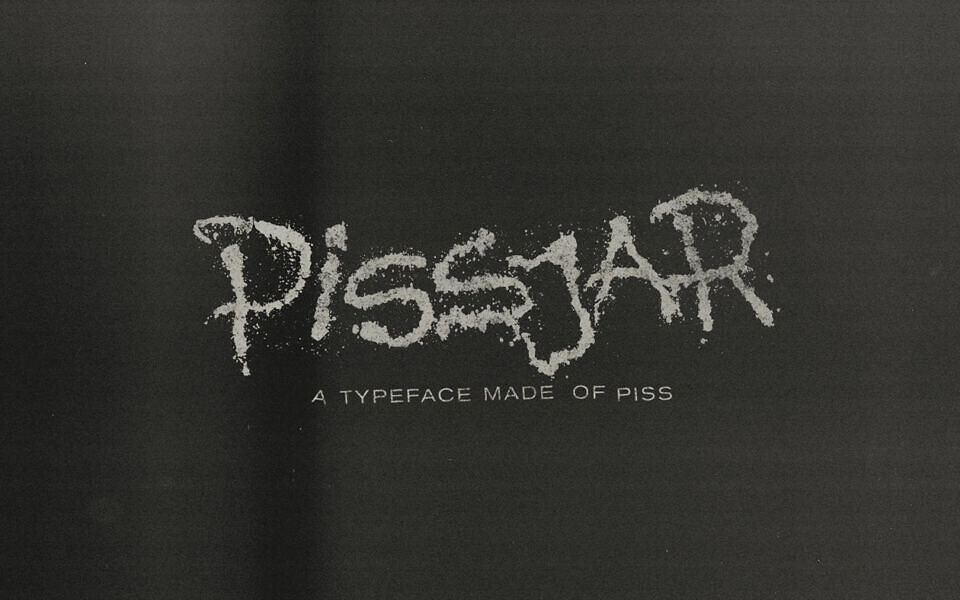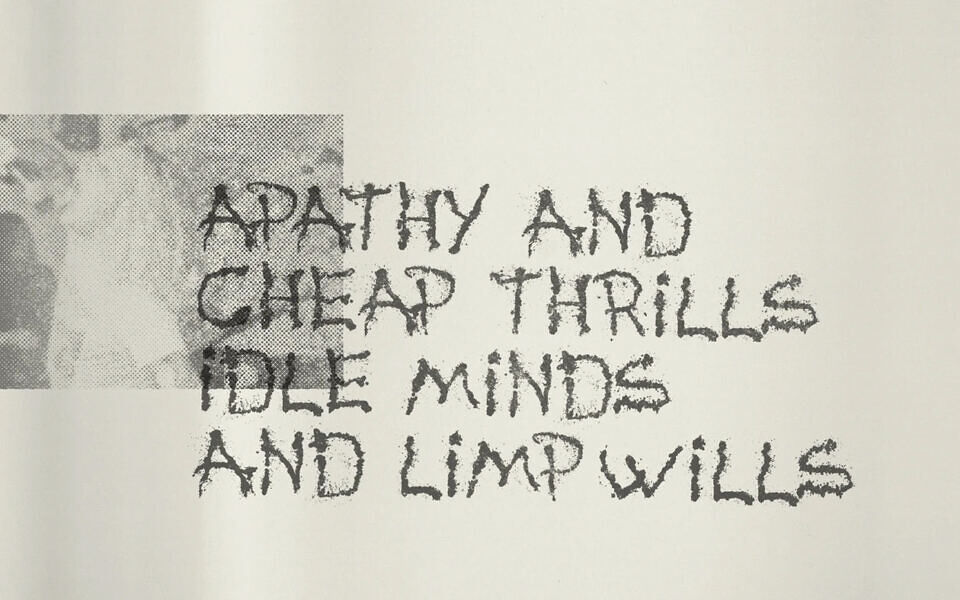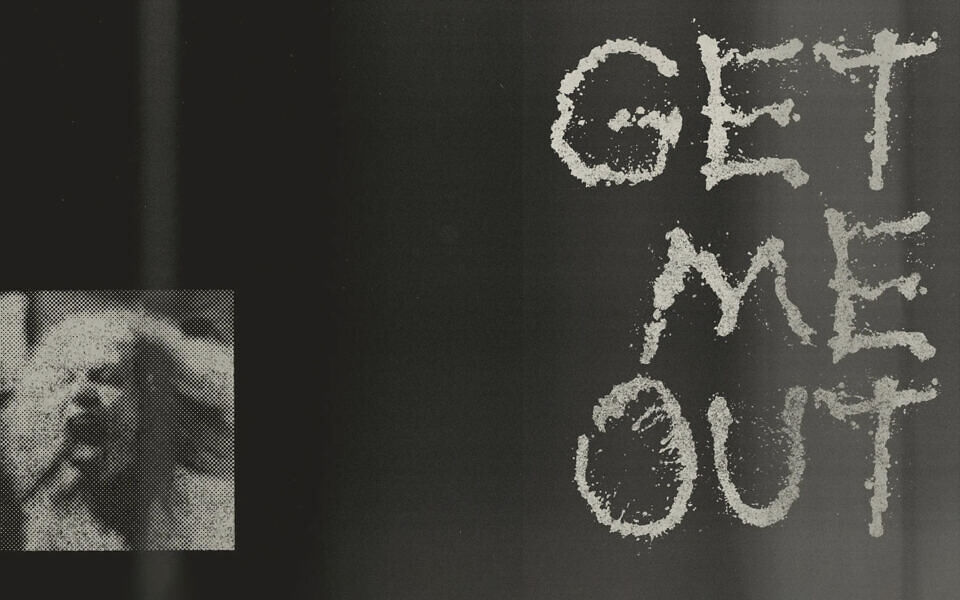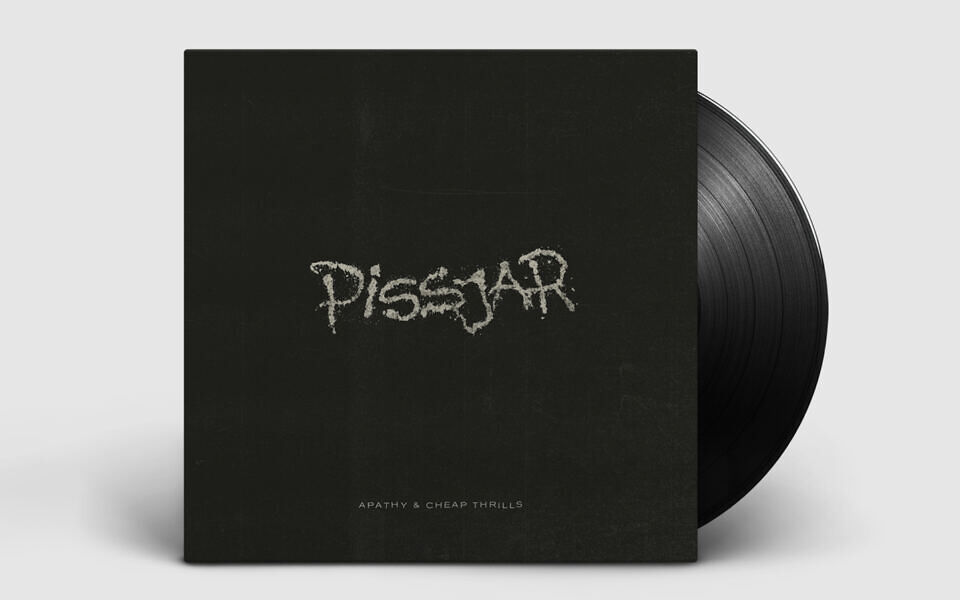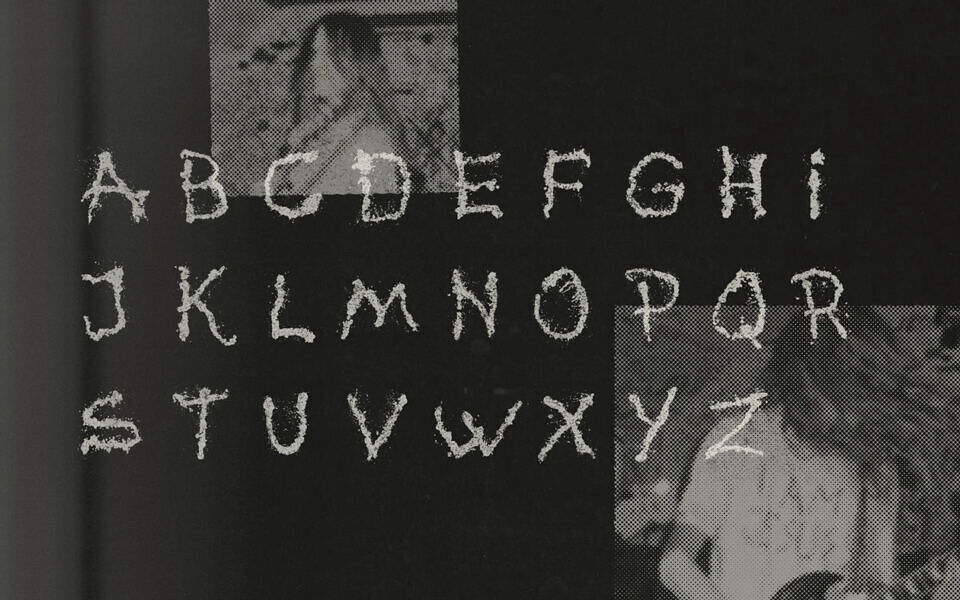
Pissjar Font is a bold, experimental display typeface crafted from real material textures captured through an unconventional process by Swedish punk band “Pissjar” and Anton Bolin. Each character was formed by transferring organic markings onto fabric, photographed, vectorized, and refined into a font with gritty, irregular edges that radiate raw, rebellious energy.
This free-to-use typeface blends expressive distortion with unmistakable analog character, perfect for standout headlines, underground artwork, and avant-garde designs.